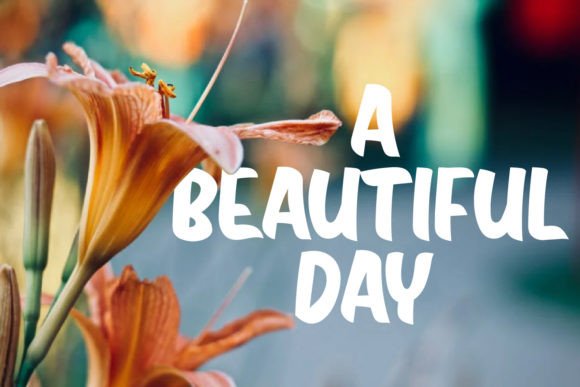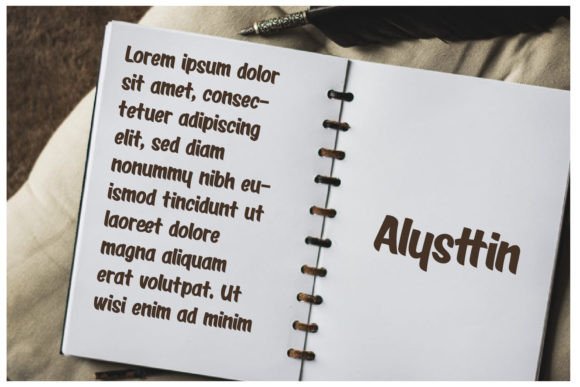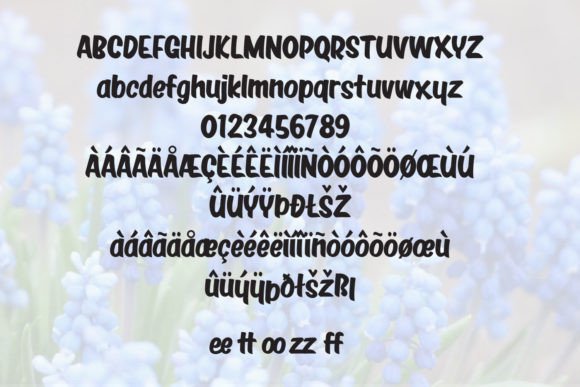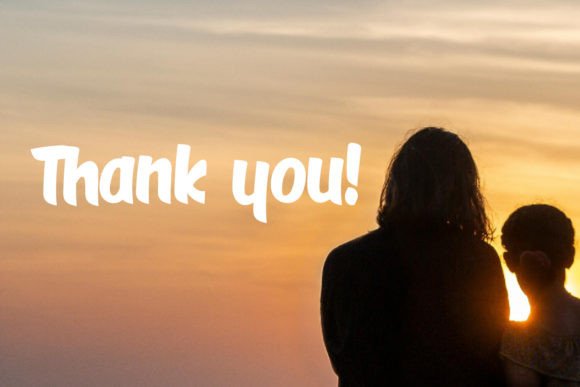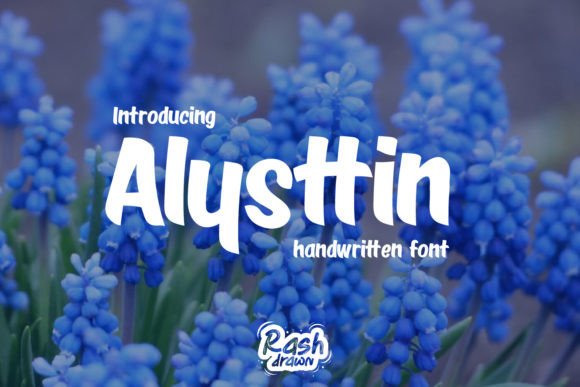
Alysttin Font: Elevate Your Designs with Elegance and Sophistication
In the world of typography, fonts play a crucial role in conveying the tone and personality of a design. For designers and crafters seeking to add a touch of elegance and class to their projects, Alysttin Font is an excellent choice. This trendy handwritten font boasts a contemporary atmosphere and impeccable form, drawing inspiration from timeless classic calligraphy.
The Inspiration Behind Alysttin Font
Alysttin Font is a masterful blend of traditional calligraphy and modern design sensibilities. Its creators aimed to craft a font that would evoke the sophistication and refinement of classic calligraphy, while still feeling fresh and contemporary. The result is a font that is both nostalgic and forward-thinking, perfect for designers looking to create stunning visual content.
Key Features of Alysttin Font
- Handwritten with a Personal Touch: Alysttin Font is a handwritten font, imbuing it with a personal and organic feel. Each letter is carefully crafted to convey a sense of elegance and refinement.
- Contemporary Atmosphere: Despite its classic inspiration, Alysttin Font has a distinctly modern feel. Its clean lines, subtle curves, and balanced proportions make it perfect for designs that require a touch of sophistication.
- Impeccable Form: The font’s impeccable form ensures that it remains legible and visually appealing, even at smaller sizes. This makes it ideal for use in a variety of design applications, from logos and branding to digital media and print materials.
- Timeless Classic Calligraphy Inspiration: Alysttin Font draws inspiration from the classic calligraphy of the past, giving it a sense of heritage and tradition. This inspiration is evident in the font’s elegant letterforms, refined strokes, and attention to detail.
Uses for Alysttin Font
Alysttin Font is an incredibly versatile font, suitable for a wide range of design projects. Here are a few examples of how you can use this beautiful font:
- Logo Design and Branding: Create stunning logos and brand identities with Alysttin Font. Its elegant and refined appearance makes it perfect for businesses and organizations seeking to establish a sophisticated image.
- Digital Media: Use Alysttin Font in your digital media projects, such as social media graphics, blog posts, and website designs. Its clean and modern appearance ensures that it will stand out in a crowded online environment.
- Print Materials: Alysttin Font is also well-suited for print materials, including brochures, flyers, posters, and business cards. Its impeccable form and classic inspiration make it a great choice for any print project requiring a touch of elegance.
- Crafting and DIY Projects: Crafters and DIY enthusiasts will love using Alysttin Font in their projects, such as handmade cards, scrapbooking, and other paper crafts.
Why Choose Alysttin Font?
With so many fonts available, why choose Alysttin Font for your design projects? Here are a few compelling reasons:
- Elegance and Sophistication: Alysttin Font brings a level of elegance and sophistication to any design project, making it perfect for designers seeking to create refined and visually appealing content.
- Versatility: This font is incredibly versatile, suitable for a wide range of design applications and projects.
- Easy to Read: Alysttin Font is designed to be easy to read, even at smaller sizes. This ensures that your message will be conveyed clearly and effectively.
- Unique and Memorable: With its classic inspiration and modern twist, Alysttin Font is sure to make your design stand out and leave a lasting impression.
| Author | Rashdrawn |
In conclusion, Alysttin Font is an exceptional choice for designers and crafters seeking to add elegance and class to their projects. Its unique blend of classic calligraphy inspiration and modern design sensibilities makes it a versatile and sophisticated font suitable for a wide range of applications. Whether you’re working on a logo design, digital media project, print materials, or crafting and DIY project, Alysttin Font is sure to elevate your design and leave a lasting impression.